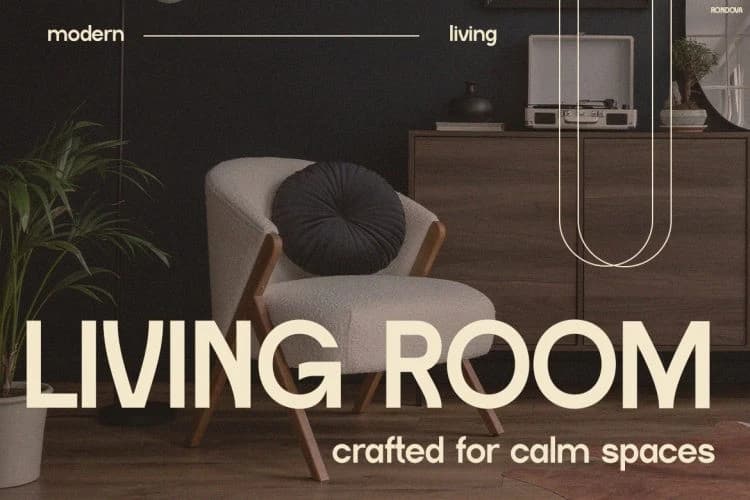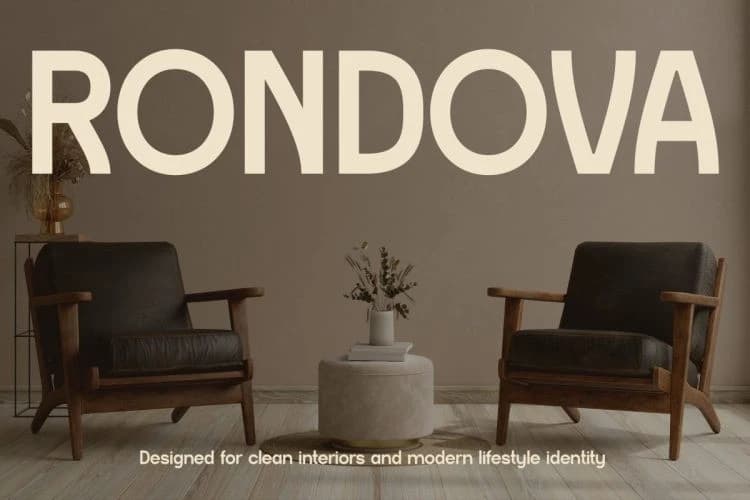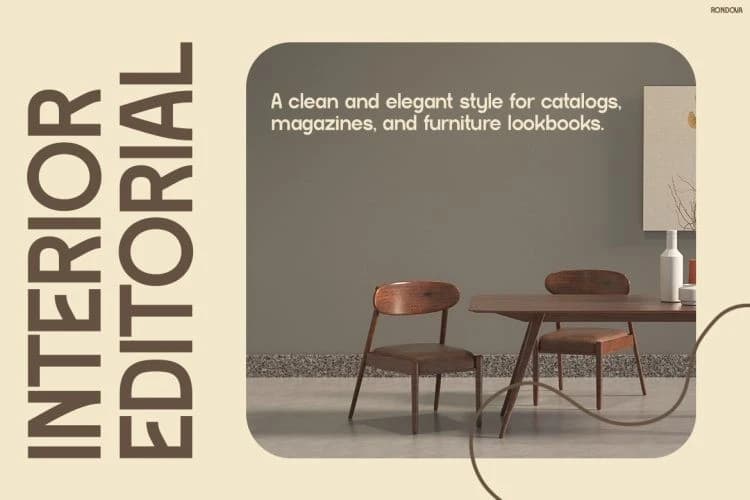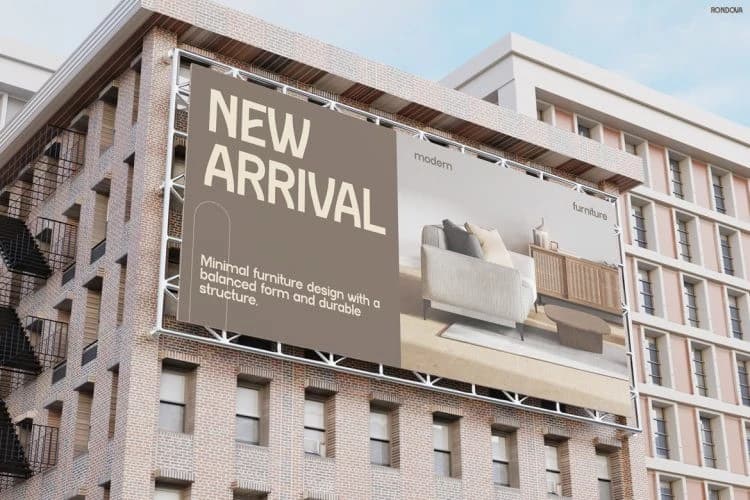
RONDOVA Font is a clean and sophisticated typeface designed to bring a sense of calm, elegance, and modern simplicity into your designs. At first glance, its balanced proportions and smooth letterforms create a refined and timeless aesthetic.